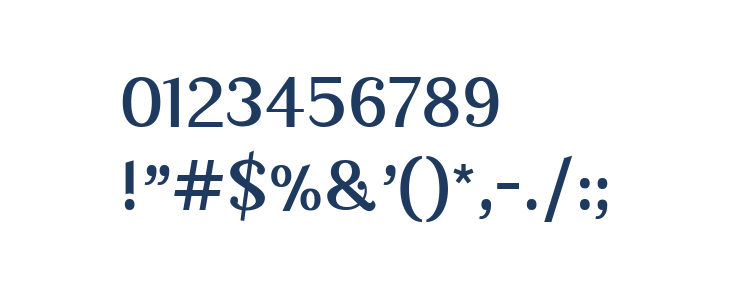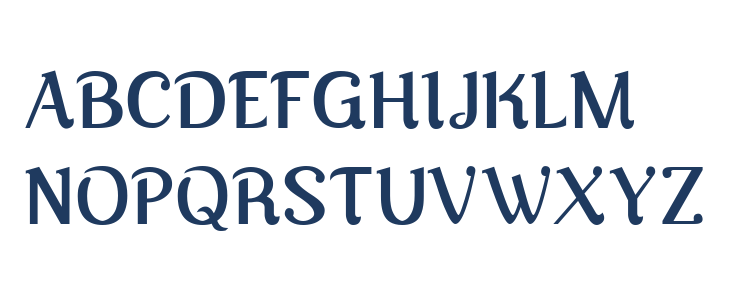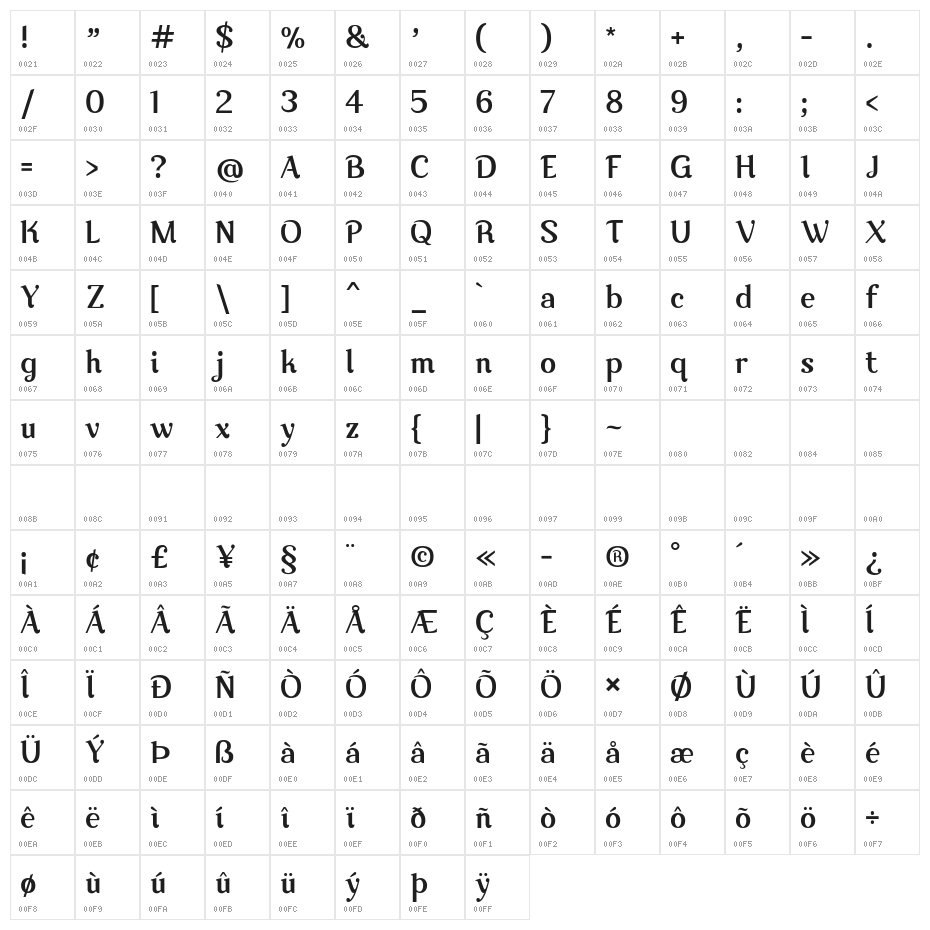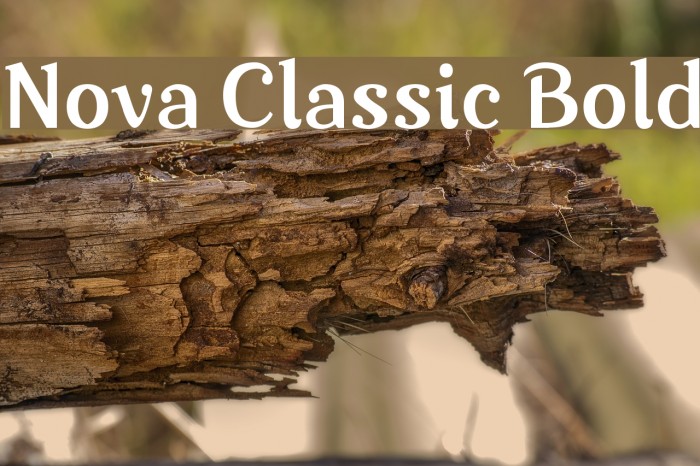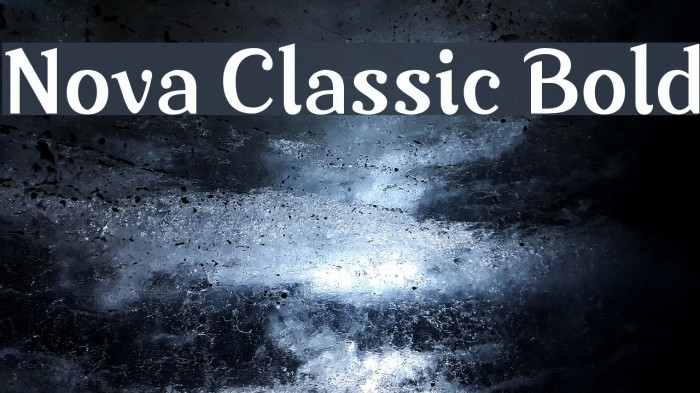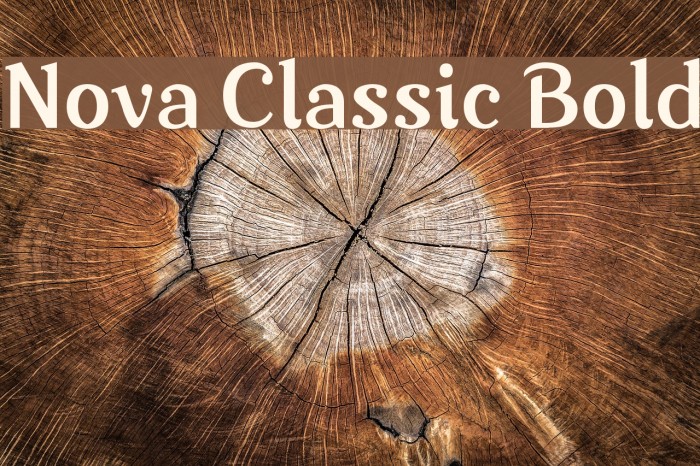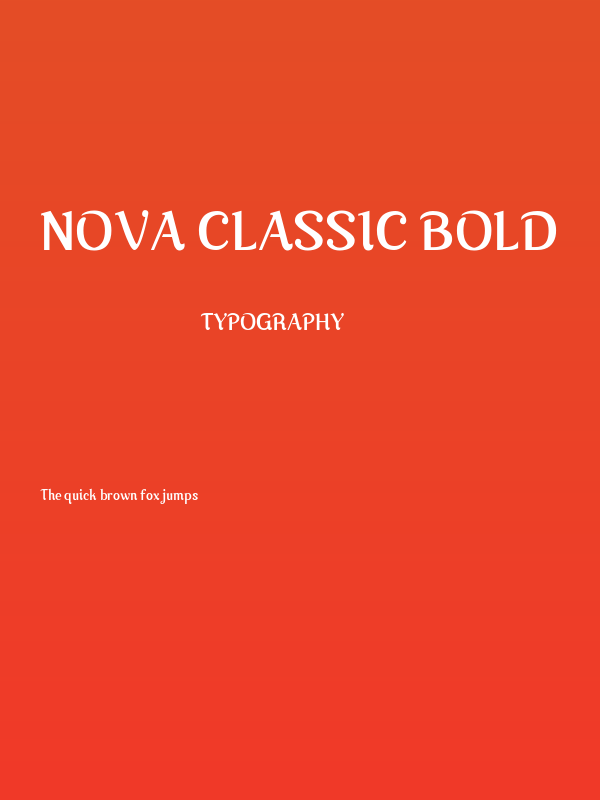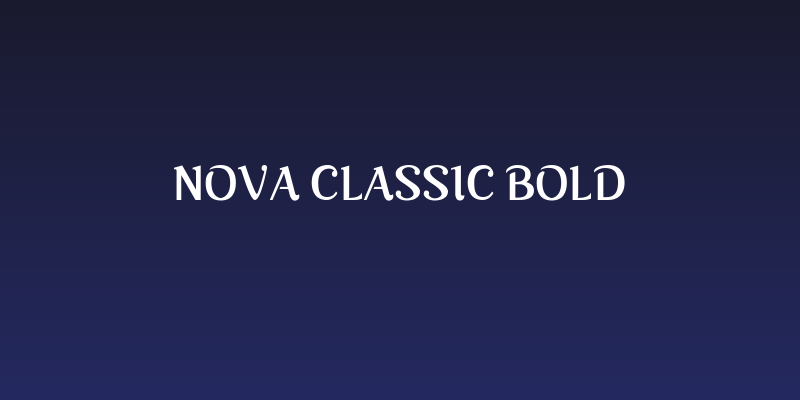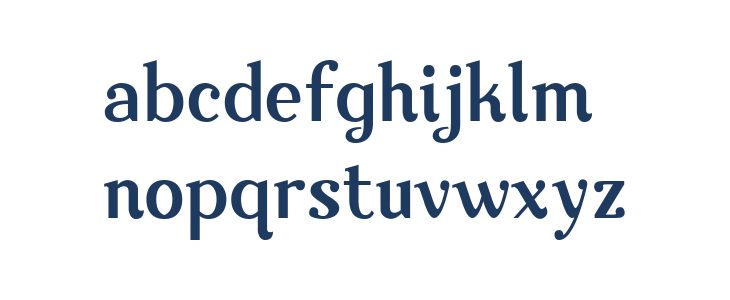
Nova Classic Bold Font
Nova Classic Bold Description
This font exhibits a classic serif style with bold, pronounced strokes that give it a strong and authoritative presence. The serifs are sharply defined, adding a touch of elegance and tradition to the overall appearance. The uppercase letters are tall and commanding, while the lowercase characters maintain a consistent flow with slightly rounded edges, providing a harmonious balance. The numerals are clear and distinct, ensuring readability. Special characters are well-integrated, maintaining the font's cohesive look. This font is ideal for projects that require a blend of classic sophistication and modern boldness.
| Use Case | Headlines, Logos, Editorial |
| Proposed Projects | Ideal for book covers, editorial headlines, branding, and formal invitations. |